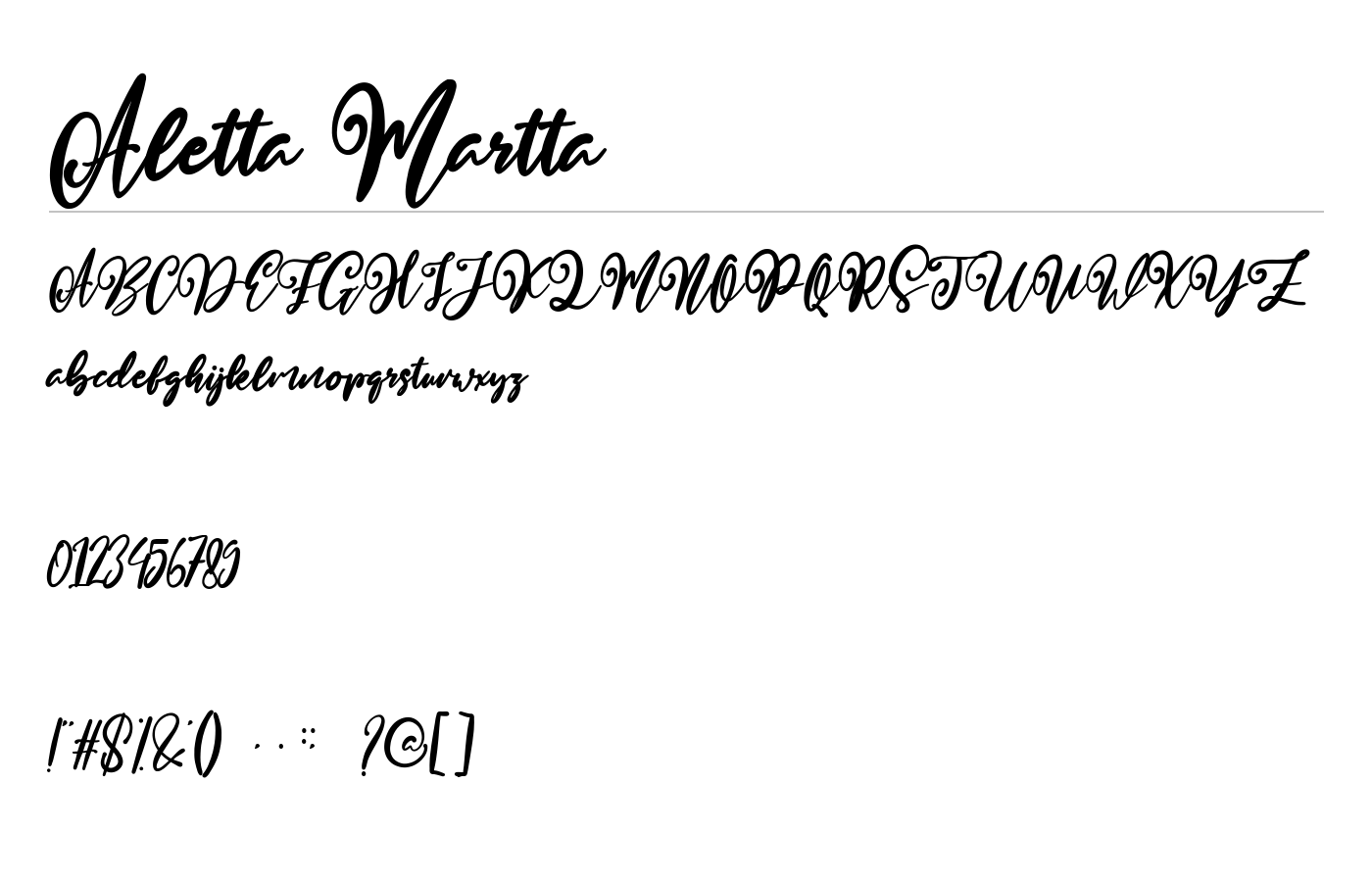
Aletta Martta is a stylish script font featuring elegant, flowing letterforms with a hand-brushed feel. Its medium weight and smooth curves give it a sophisticated yet approachable personality, making it ideal for invitations, branding, and logos that seek a charming, creative, or feminine touch. This font works beautifully in headlines or accent text where a sense of warmth and elegance is desired.
Aletta Martta Font
About Aletta Martta Font
| Font family | Aletta Martta Font |
| Designer | Missinklab Studio |